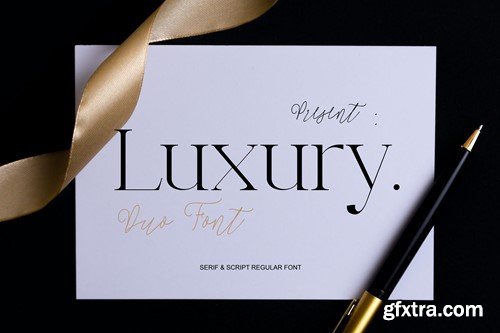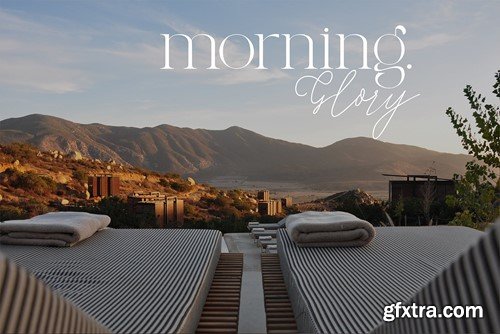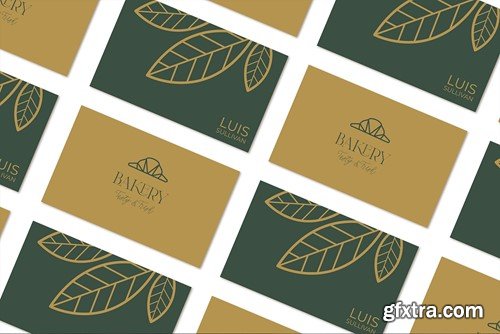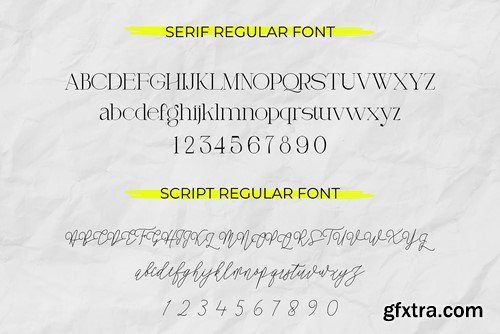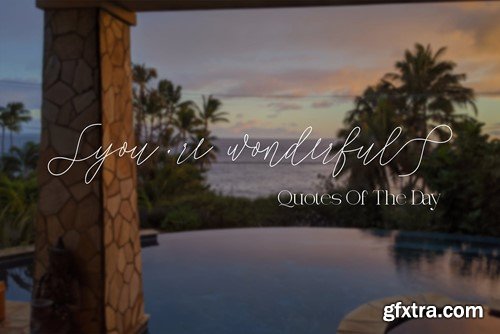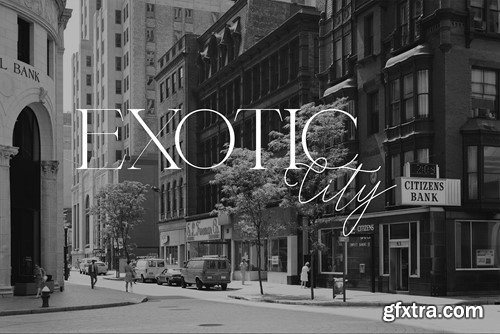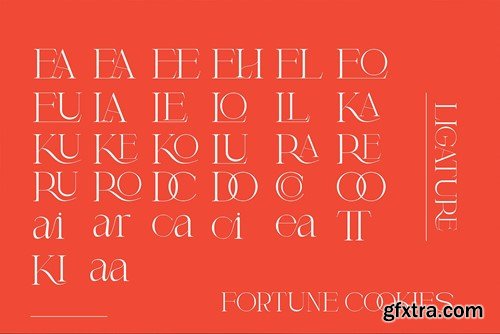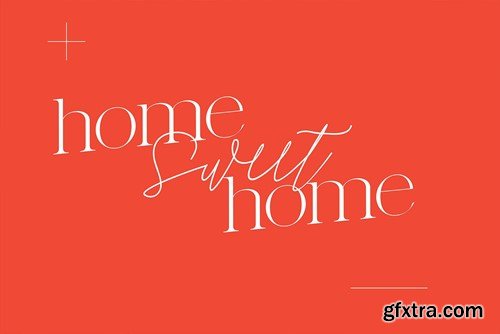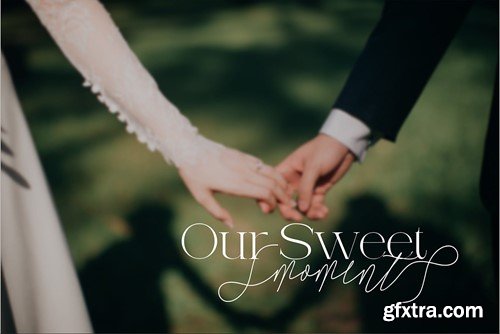
Luxury font Duo comes with a combination of modern and elegant fonts, namely serif and signature style. While maintaining a feminine and elegant impression combined with a beautiful Luxury Scripts which is a perfect combination to your various design needs. This handcrafted style makes it perfect for logos & branding, invitations, stationery, wedding designs, social media, advertisements, printed quotes, product packaging, labels, photography, watermarks, special events, or even magazine layouts. FILE INCLUDE Luxury Font Duo supports the following languages; English, French, Italian, Spanish, Portuguese, German, Swedish, Norwegian, Danish, Dutch, Finnish, Indonesian, Malay, Hungarian, Polish, Croatian, Turkish, Romanian, Czech, Latvian, Lithuanian, Slovak, Slovenian.